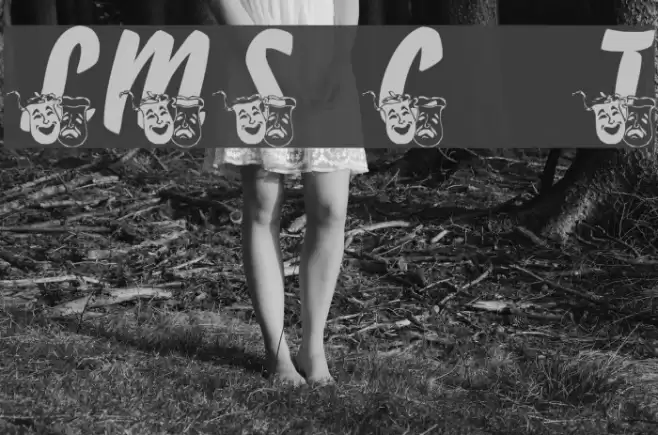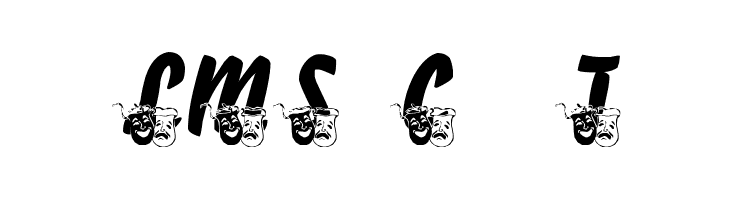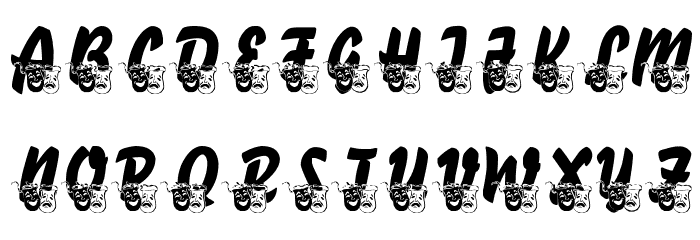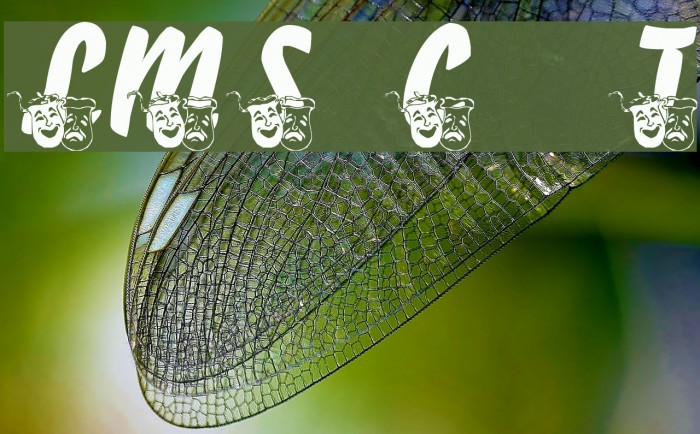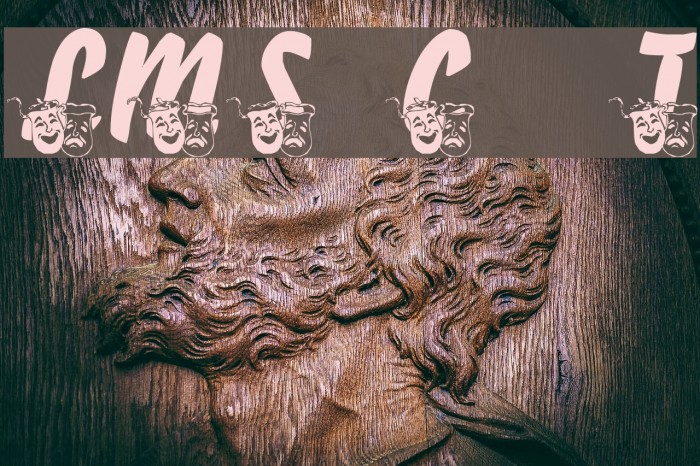
LMS Comedy of Tragedies Font
LMS Comedy of Tragedies Description
This font features a bold and expressive style with a theatrical flair, incorporating dramatic mask motifs that add a unique character to each letter. The uppercase and lowercase letters are designed with a playful yet elegant script, making it ideal for creative projects that require a touch of drama and sophistication. The numbers and special characters maintain the same artistic theme, ensuring consistency across all text elements. The font's distinct personality makes it suitable for eye-catching designs.
A bold, theatrical font with dramatic mask motifs and elegant script style from Uncategorized fonts.
- Proposed Projects: Ideal for theater posters, event invitations, dramatic book covers, and artistic branding.